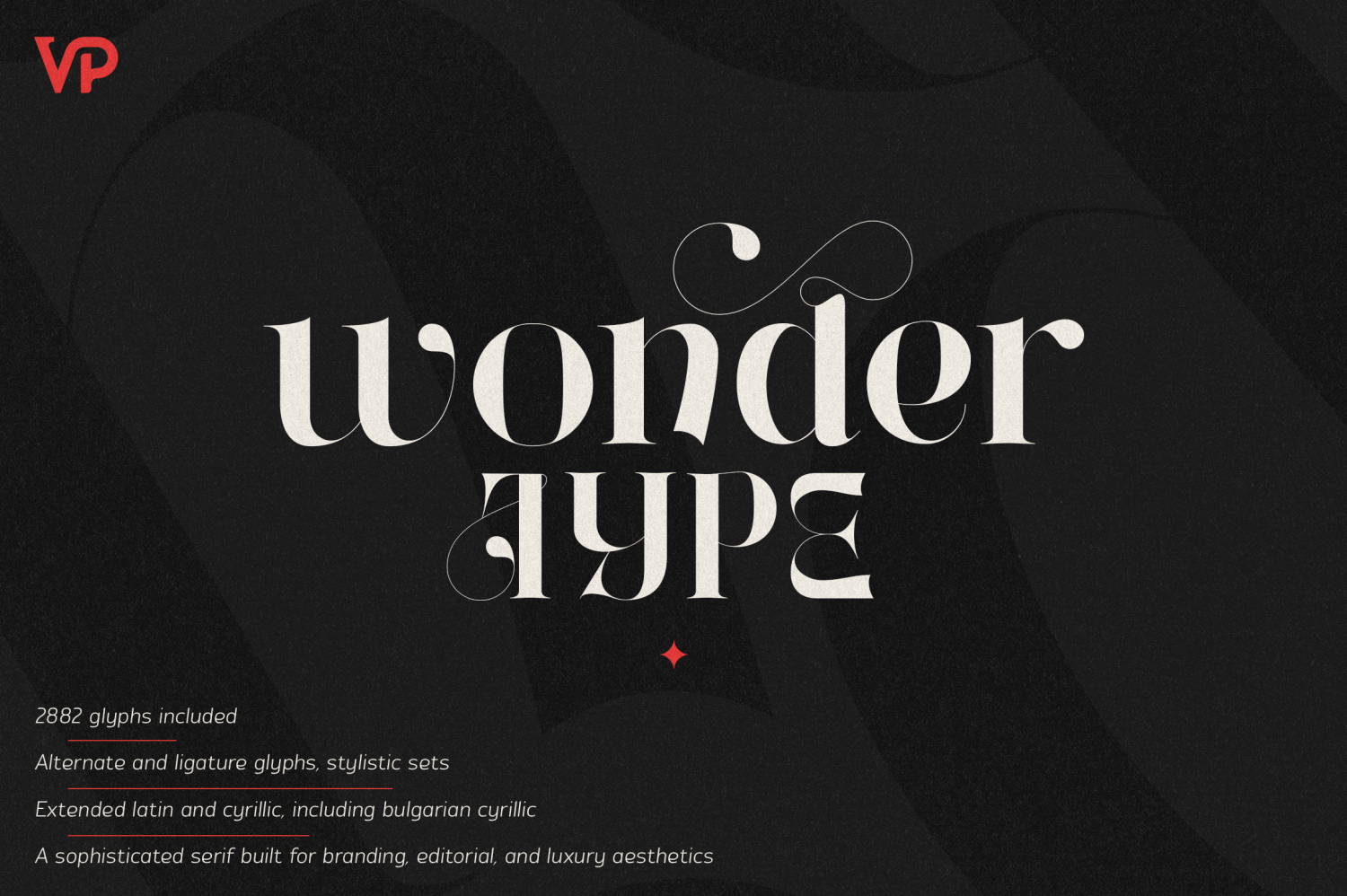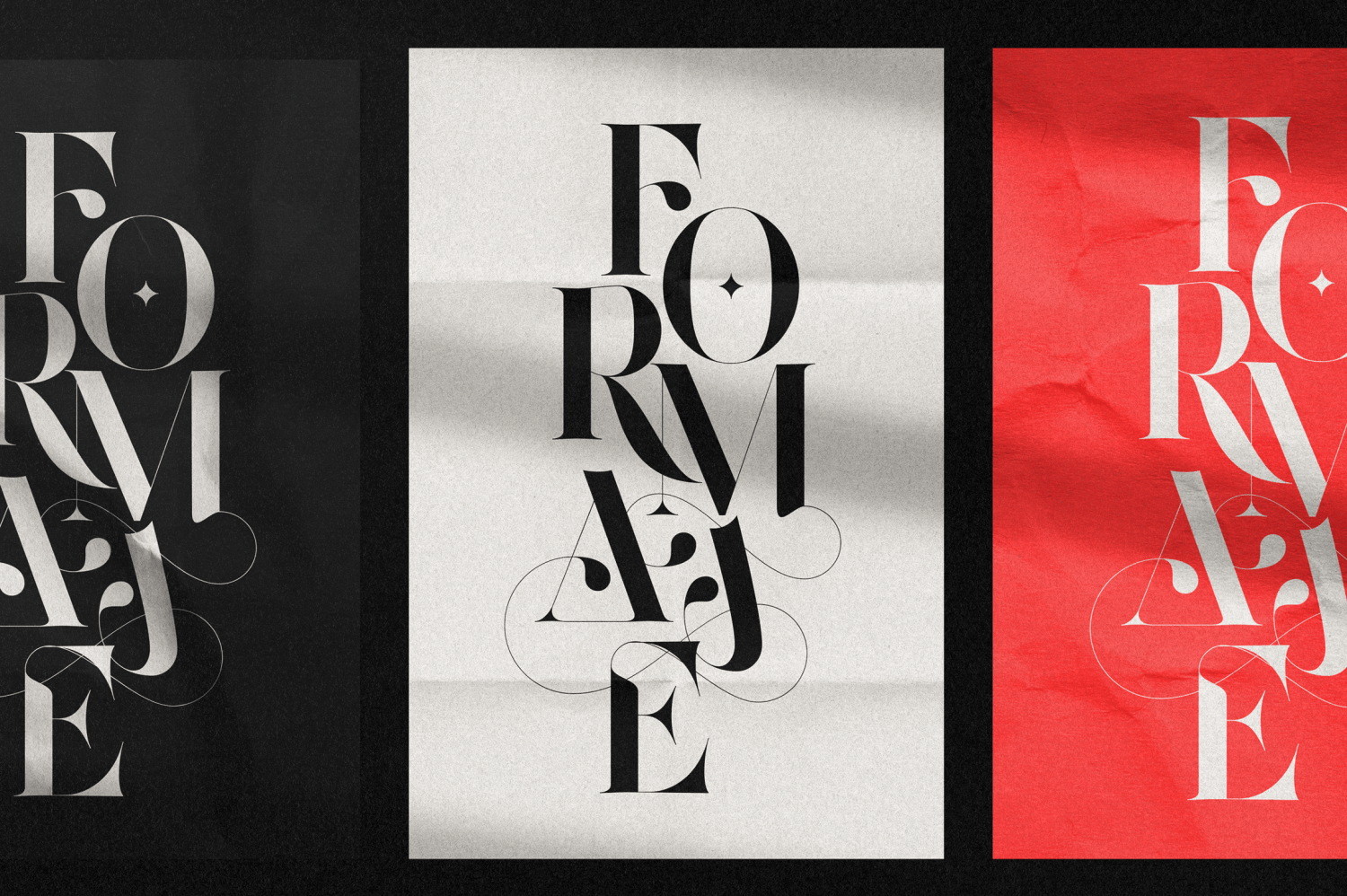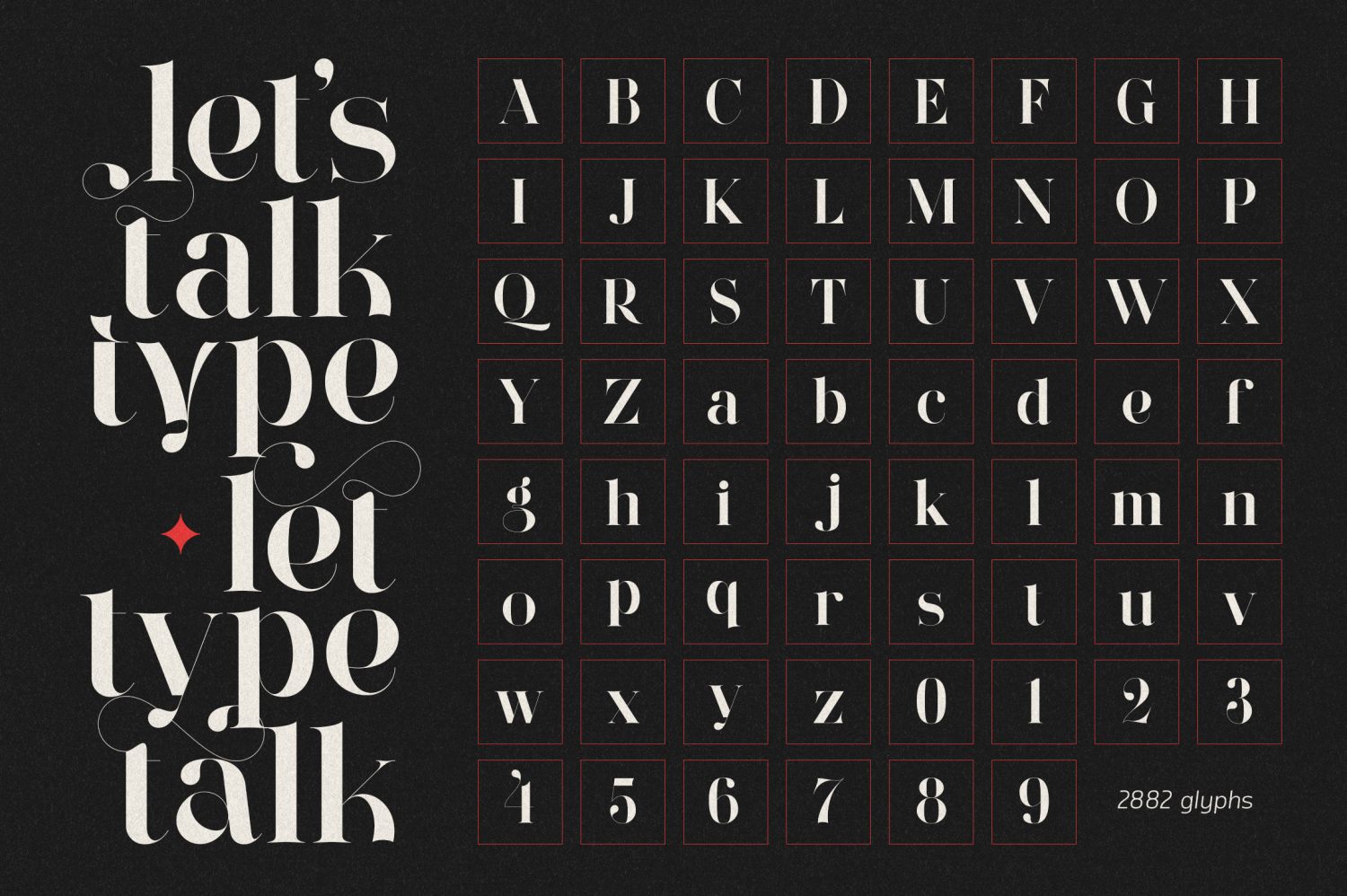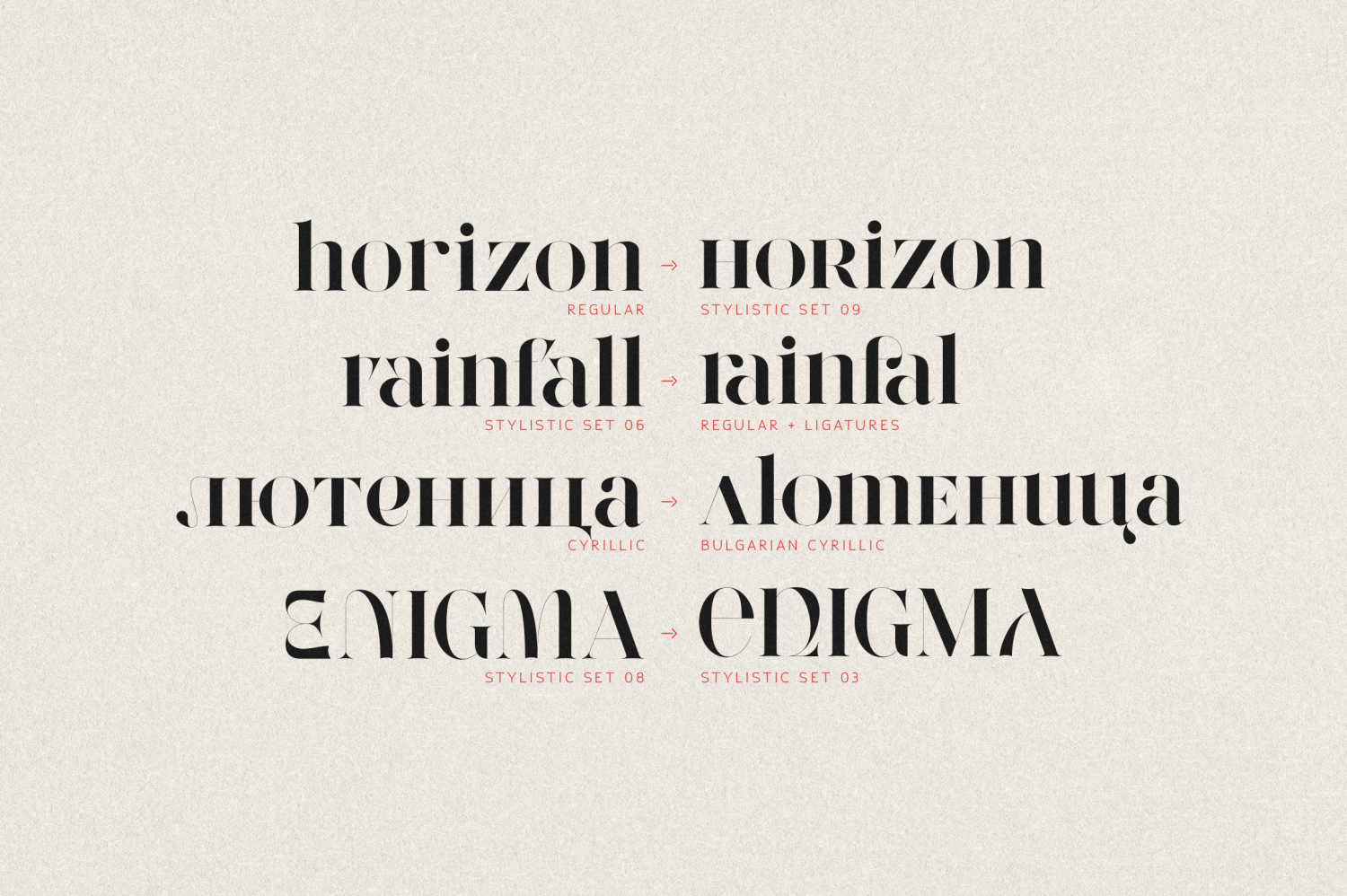
Wonder Type
Wonder Type – A Refined Serif for Branding, Editorial, and Luxury Design
Wonder Type is a high-end serif font designed for branding, editorial, and luxury aesthetics. With 2,882 meticulously crafted glyphs and support for 95 languages, including Cyrillic and Bulgarian Cyrillic, this font is perfect for designers who seek elegance and versatility.
Features & Glyphs
✔ Extensive Character Set – Includes uppercase, lowercase, numerals, punctuation, and multilingual support.
✔ Cyrillic & Bulgarian Cyrillic Support – Designed to provide true typographic integrity across multiple languages.
✔ Alternate Glyphs & Ligatures – Includes stylistic sets and discretionary ligatures for a refined, customized look.
✔ Luxury Appeal – Perfect for editorial layouts, high-end branding, invitations, packaging, and advertising.
Elevate Your Designs with Wonder Type
Whether you're crafting a luxury magazine, branding for a high-end business, or elegant packaging, Wonder Type delivers sophistication and versatility in every letterform!